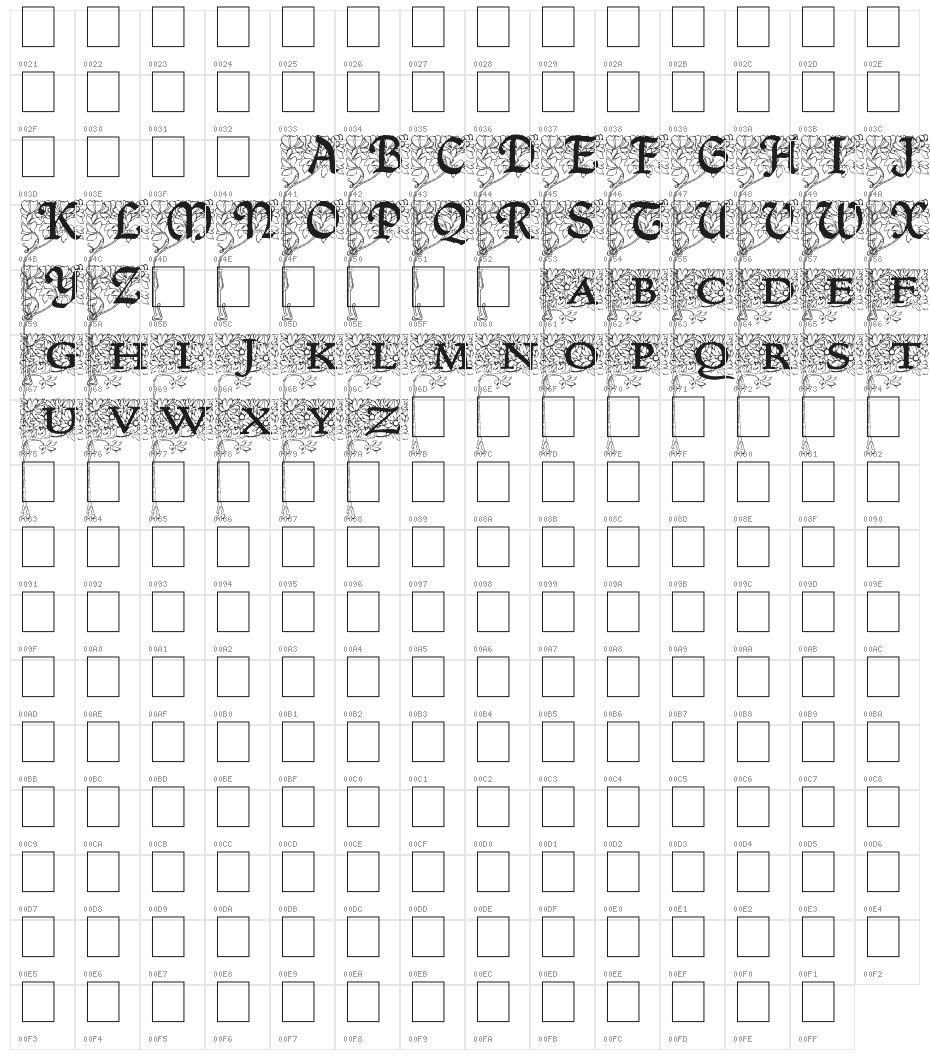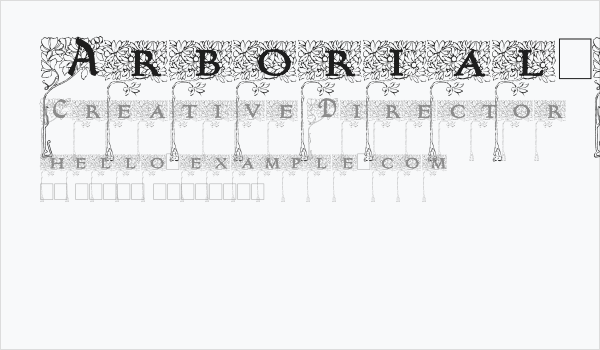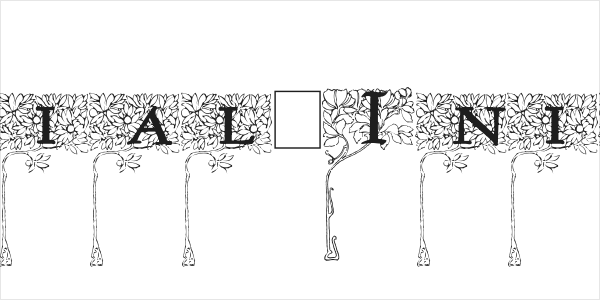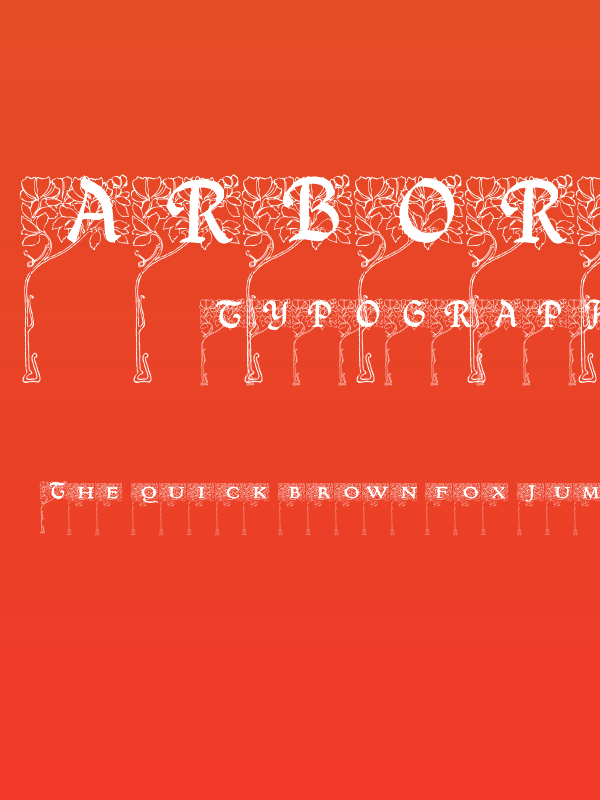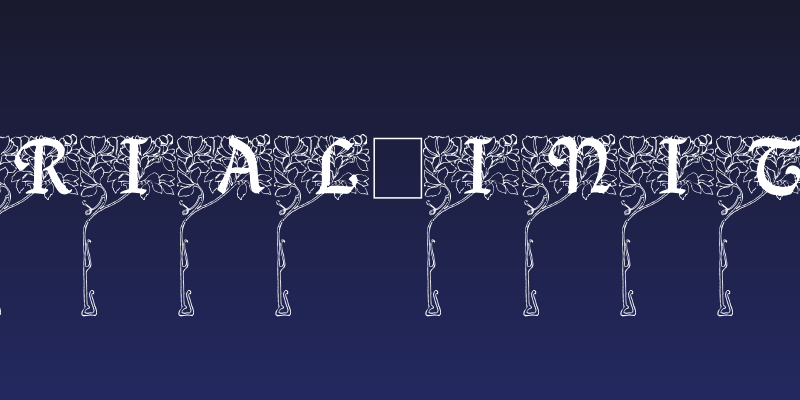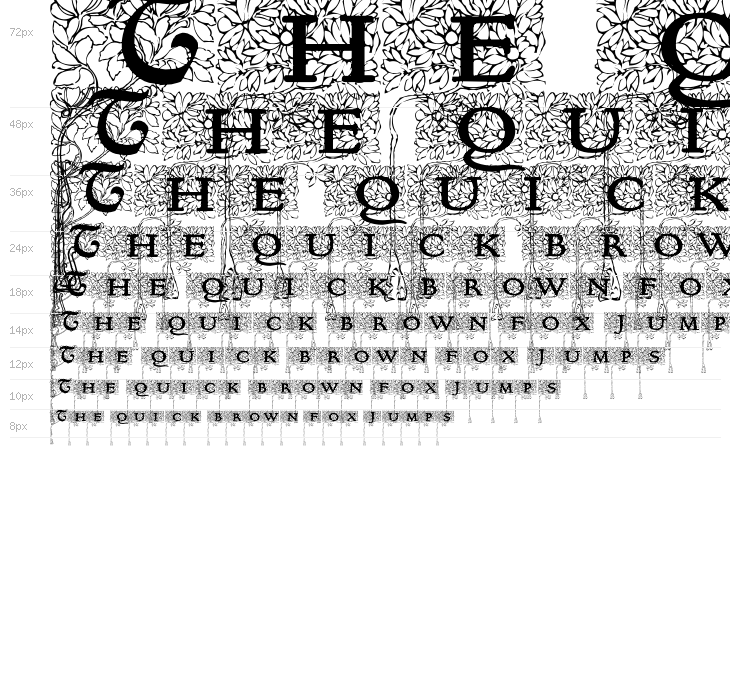
Arborial_Initials Font
Arborial_Initials Description
This font features an intricate and decorative style, with each letter adorned by elaborate tree-like designs that extend from the top, creating a unique and artistic appearance. The uppercase letters are the primary focus, showcasing a blend of nature-inspired elements with traditional serif forms. The detailed embellishments give each character a sense of elegance and complexity, making it suitable for projects that require a touch of sophistication and creativity. The absence of lowercase letters and numerals suggests its use as an initial or decorative element rather than for body text.
| Proposed Projects | Ideal for wedding invitations, book covers, art projects, and decorative headings. |